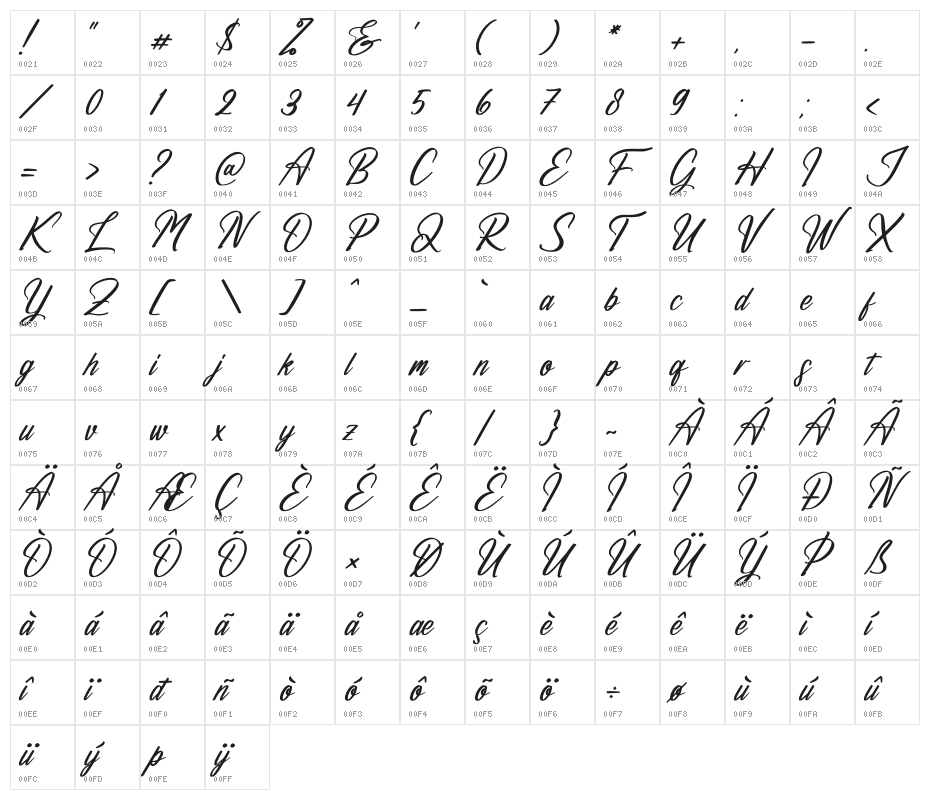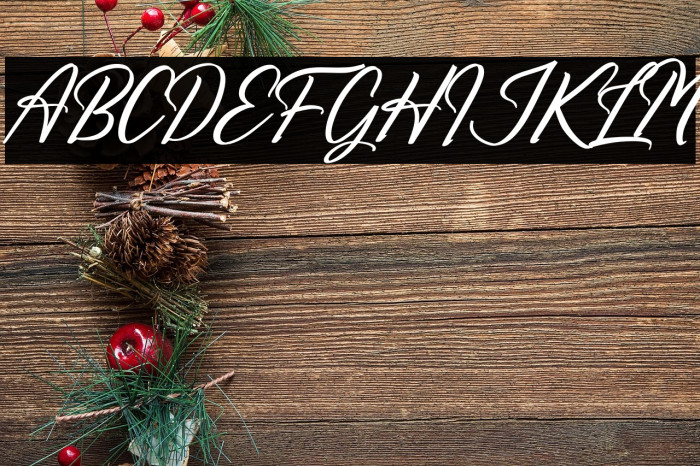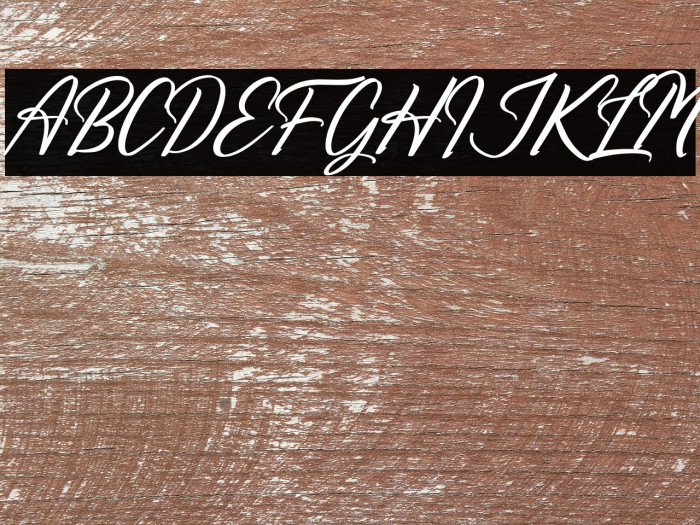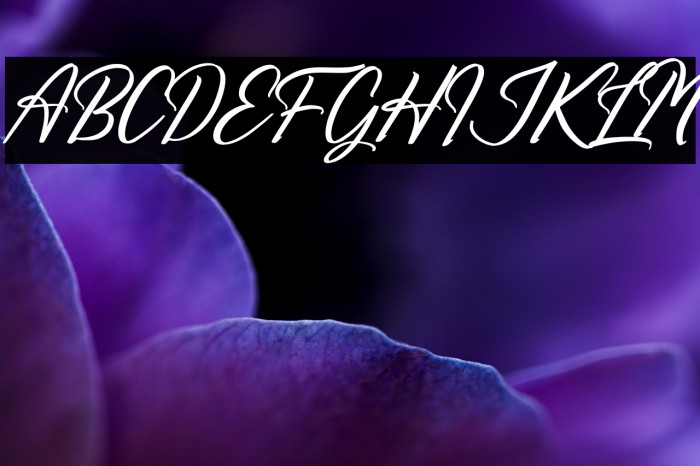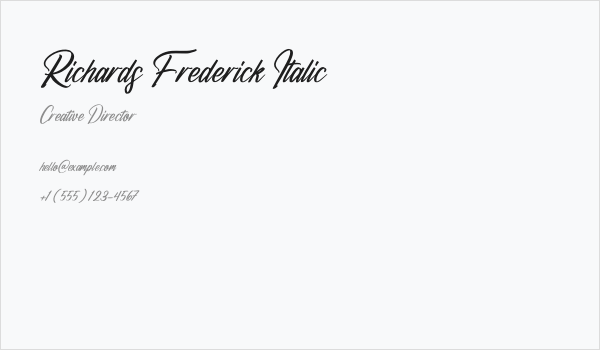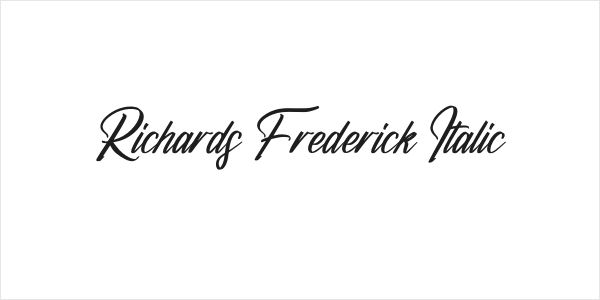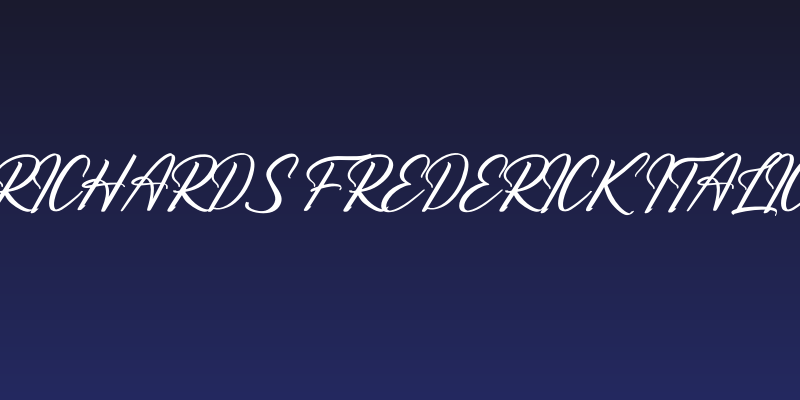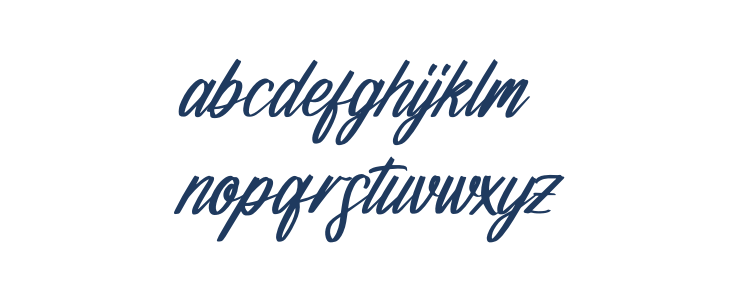
Richards Frederick Italic Font
Richards Frederick Italic Description
This font exudes a classic and elegant script style, characterized by its flowing, cursive letters that mimic the fluidity of handwriting. The uppercase letters are tall and graceful, with sweeping curves and a slight slant that adds a dynamic feel. The lowercase letters maintain a consistent flow, with smooth connections between each character, enhancing readability while preserving the script's artistic flair. Numbers and special characters are crafted with the same attention to detail, ensuring a cohesive look across all elements. The overall design is both sophisticated and approachable, making it suitable for a variety of applications.
| Proposed Projects | Ideal for wedding invitations, elegant branding, personal stationery, and artistic projects requiring a touch of sophistication. |